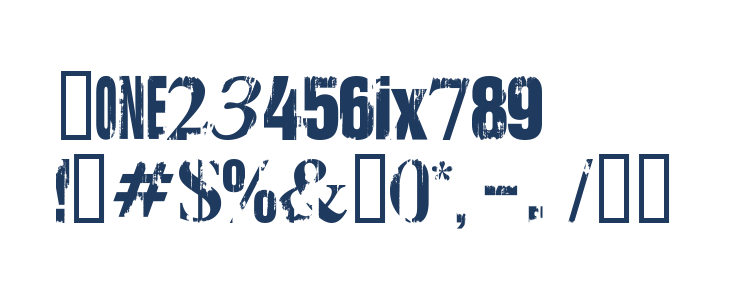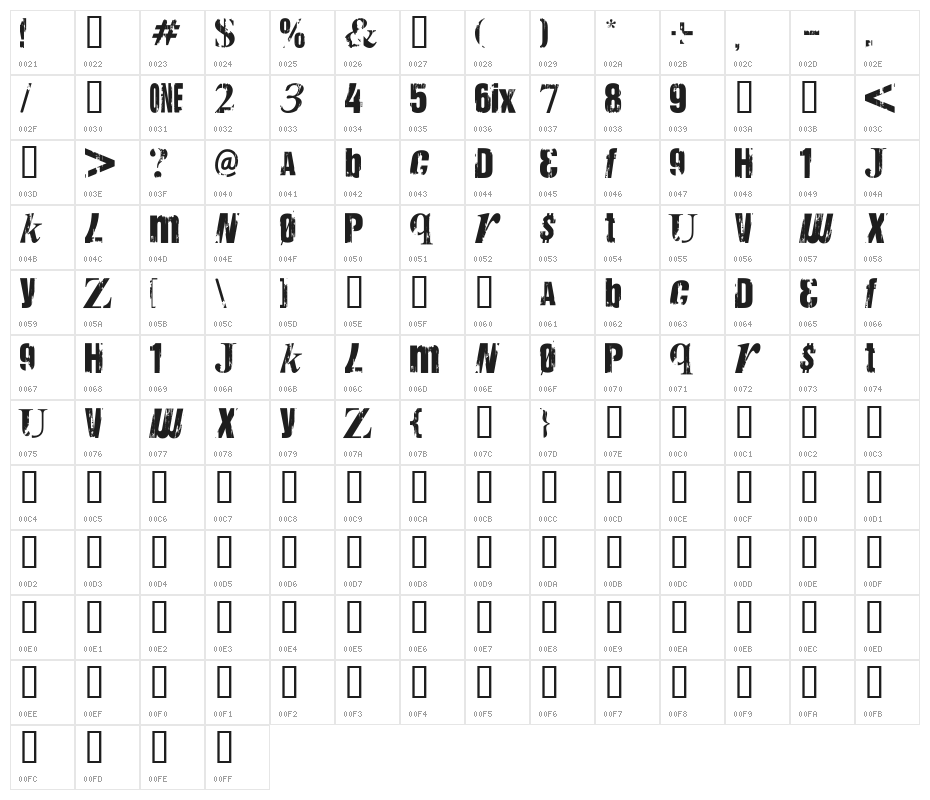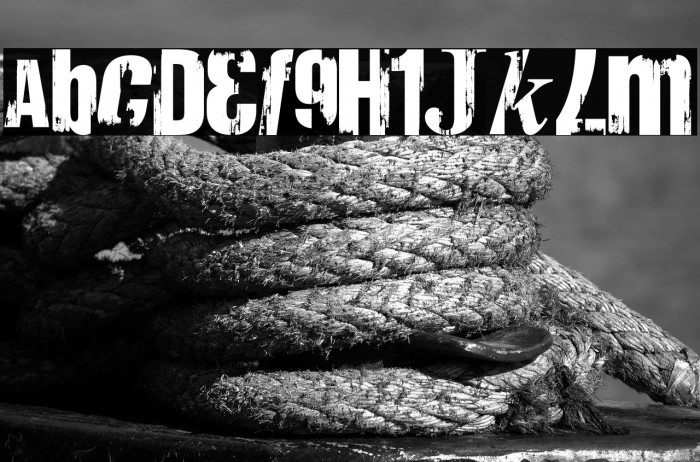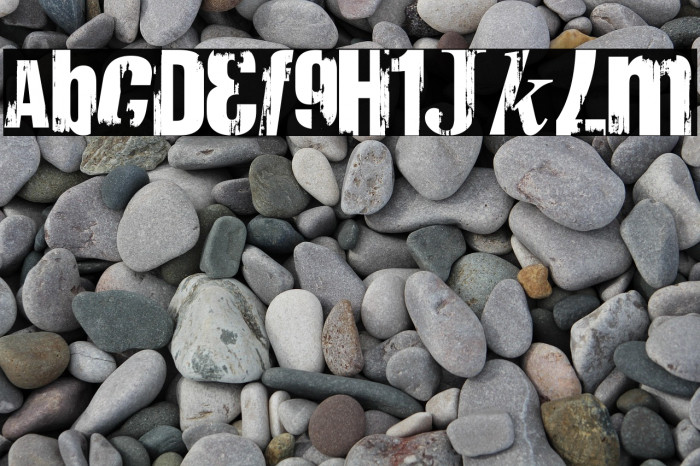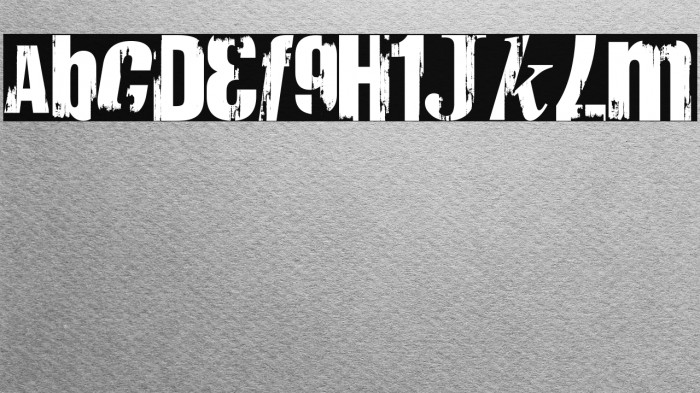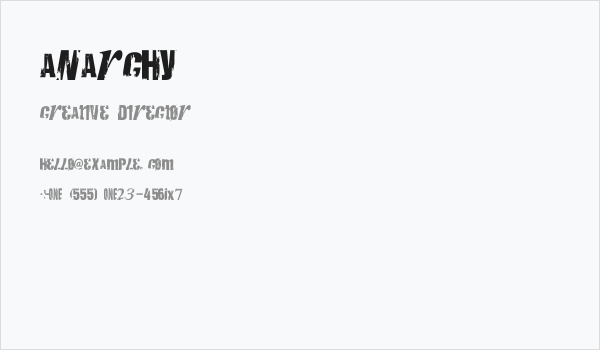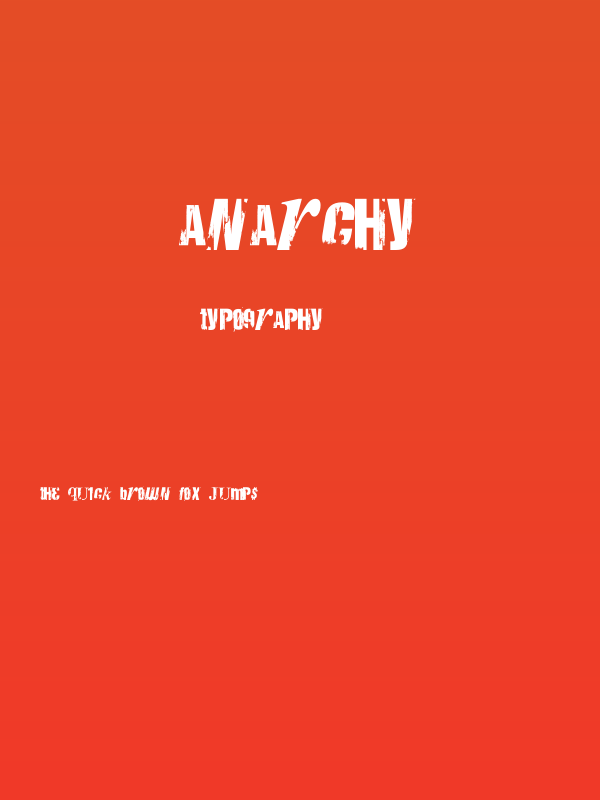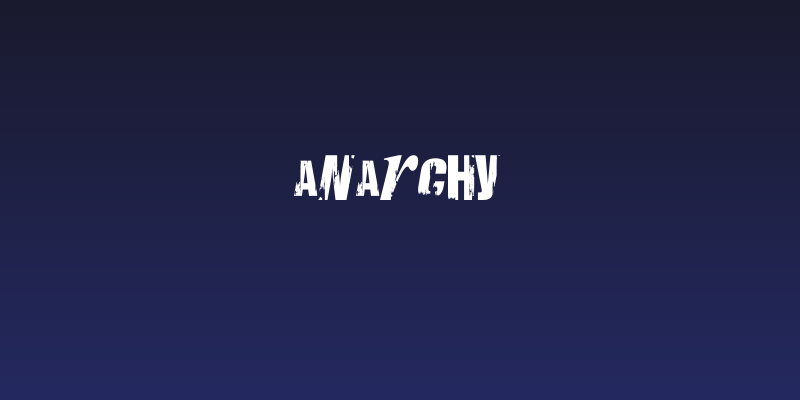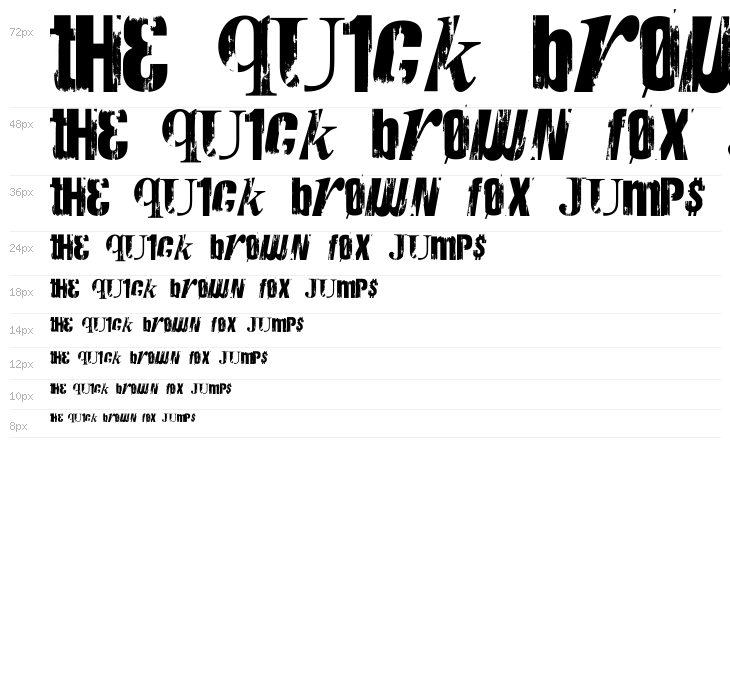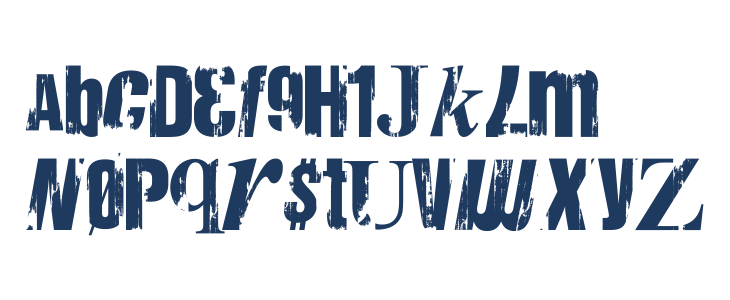
Anarchy Font
✎ Messy
| Gesamtstil | Grunge, Rebellious, Edgy |
| Anwendungsfall | Logos, Posters, Album Covers |
| Vorgeschlagene Projekte | Perfect for punk rock album covers, rebellious fashion branding, graffiti art, or any project needing a bold, edgy statement. |